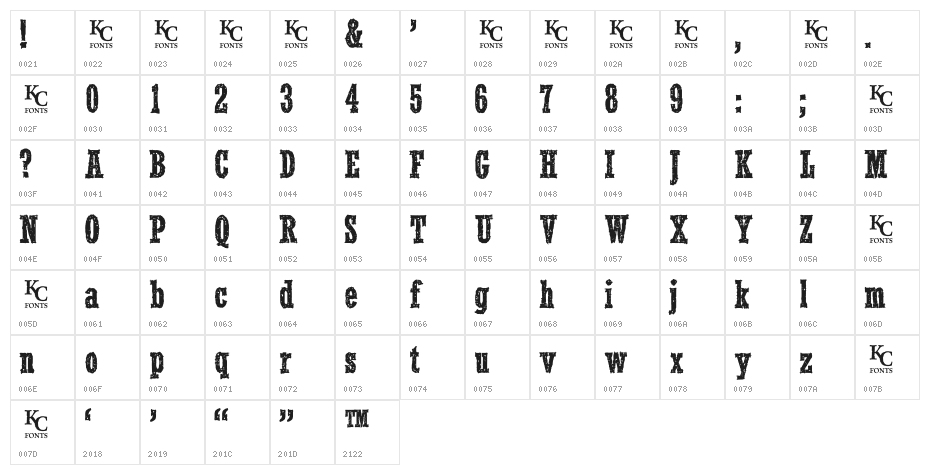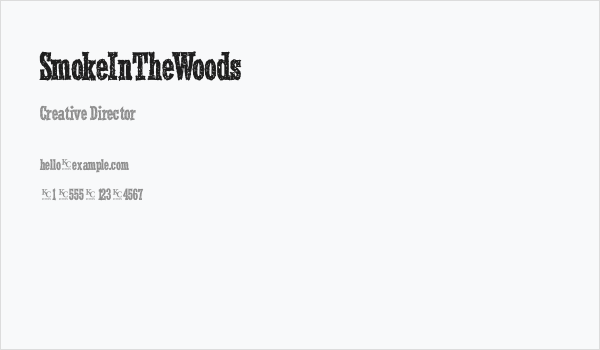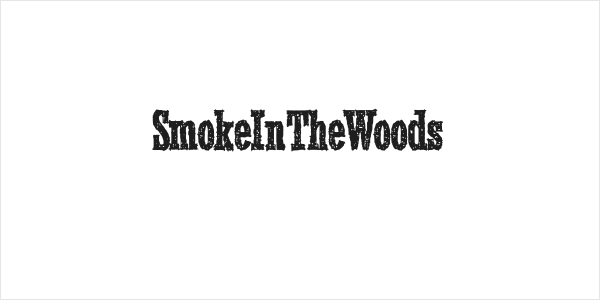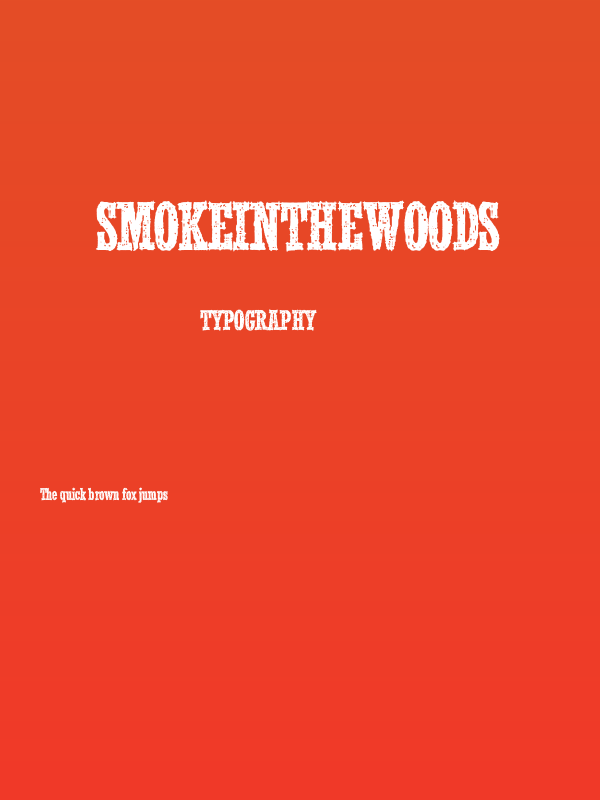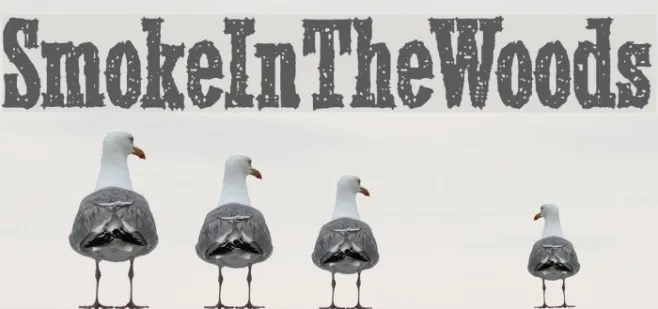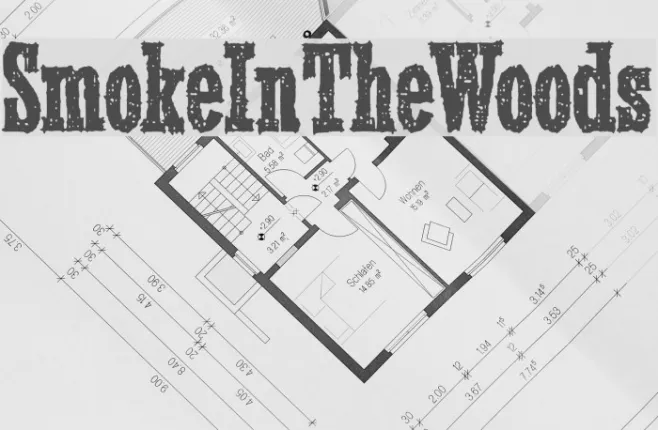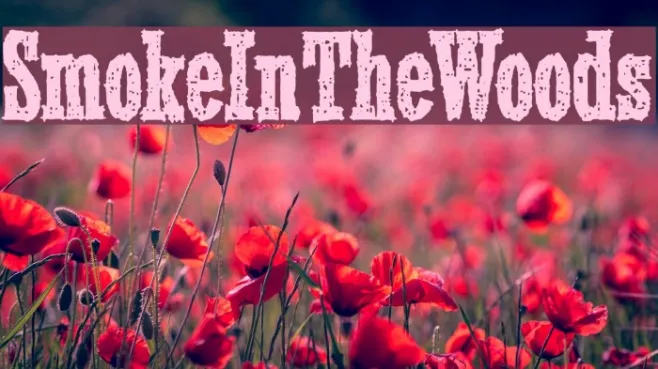
SmokeInTheWoods Font
SmokeInTheWoods Description
This font features a rugged and distressed appearance, reminiscent of weathered wood or aged textures. The characters are bold and have a rough, textured surface that gives them a unique, rustic charm. The uppercase and lowercase letters maintain a consistent style, with the uppercase being slightly more pronounced. Numbers and special characters follow the same design ethos, ensuring a cohesive look across all glyphs. This font is ideal for projects that require a touch of vintage or grunge aesthetics, offering a bold statement with its distinctive style.
| Proposed Projects | Ideal for posters, album covers, branding for rustic-themed businesses, or any project needing a vintage or grunge aesthetic. |